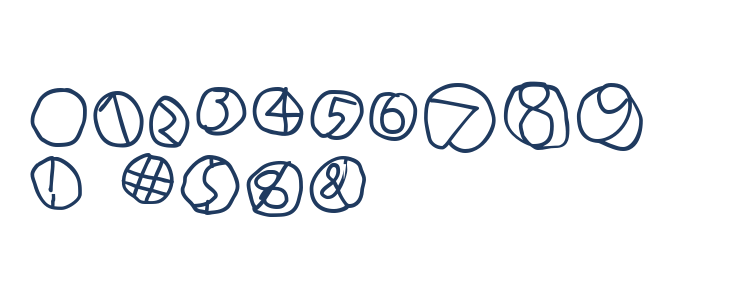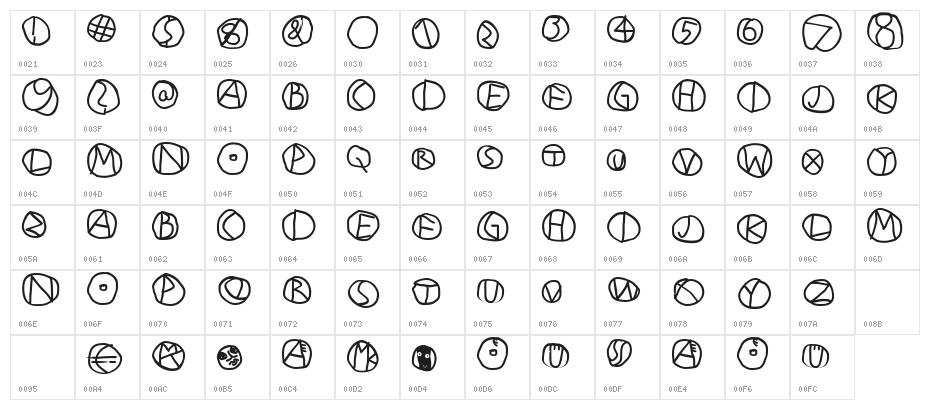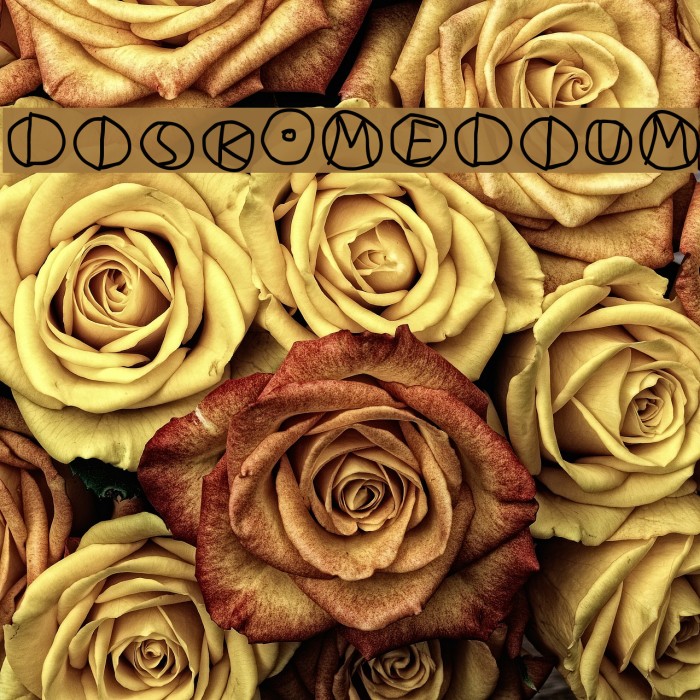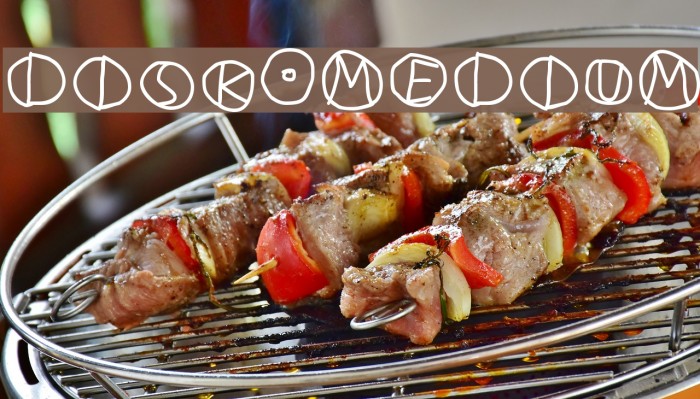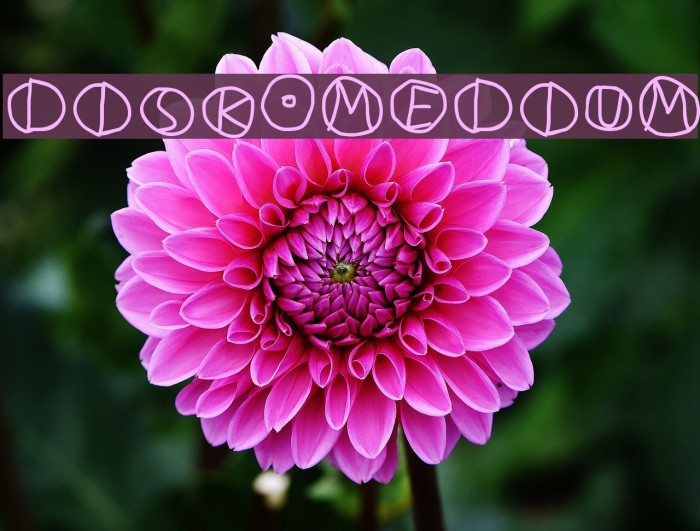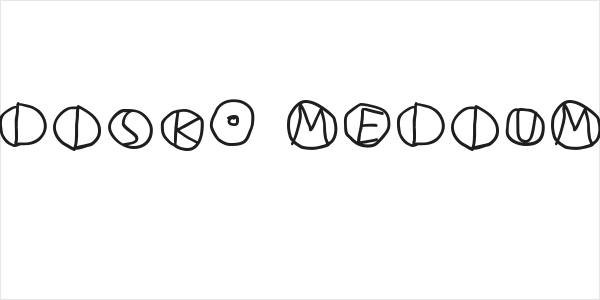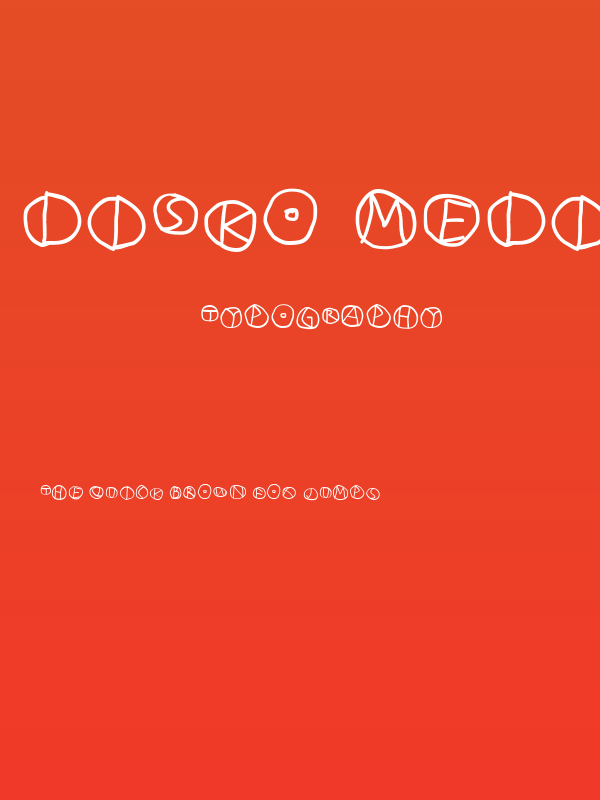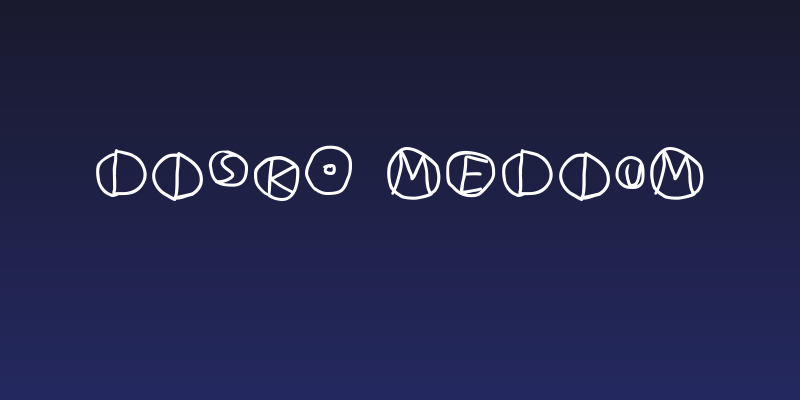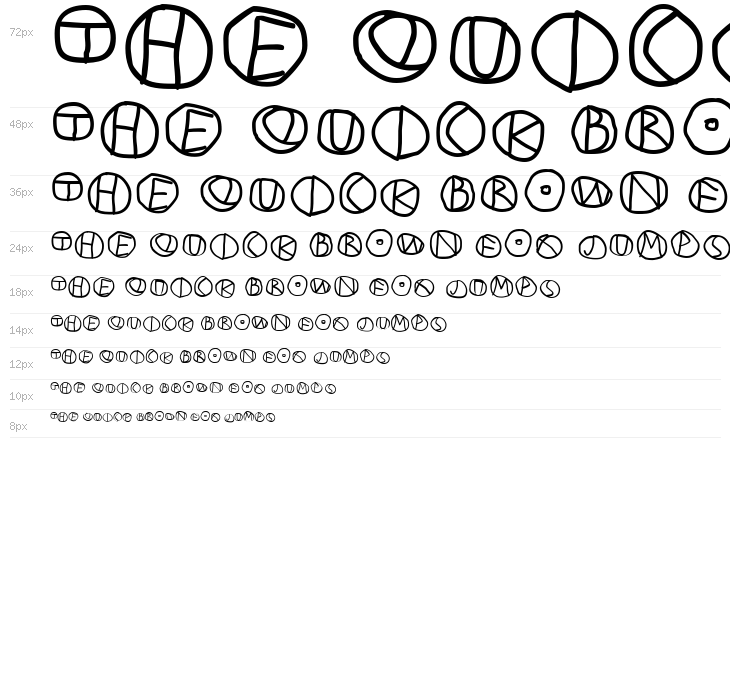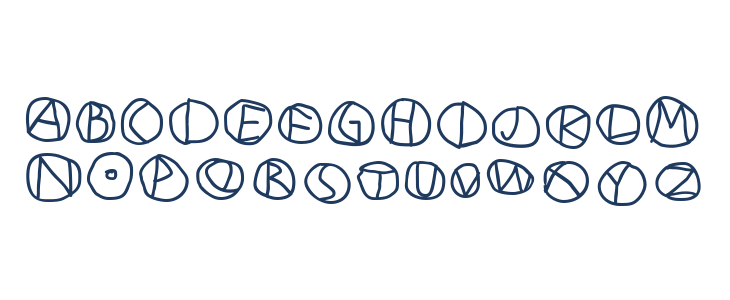
DiskO-Medium Font
DiskO-Medium Description
This font features a unique and playful design with each character enclosed within a circular shape. The letters and numbers are stylized with bold, hand-drawn lines that create an energetic and dynamic appearance. The overall look is reminiscent of doodles or sketches, giving it a casual and informal vibe. The characters are evenly spaced within their circular boundaries, providing a consistent and cohesive look across the entire set. This font is ideal for projects that require a fun and engaging aesthetic, such as children's books, party invitations, or creative branding materials.
| Overall Style | Playful, Casual, Creative |
| Proposed Projects | Children's books, party invitations, creative branding, casual posters, and playful merchandise. |